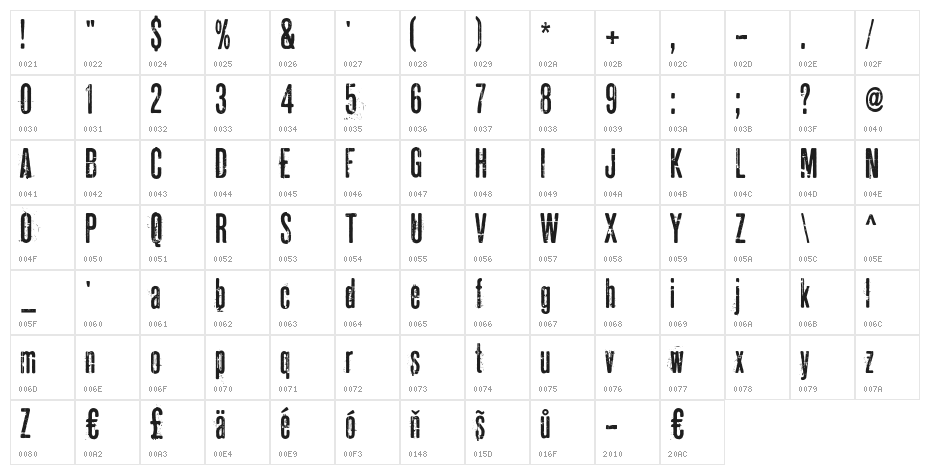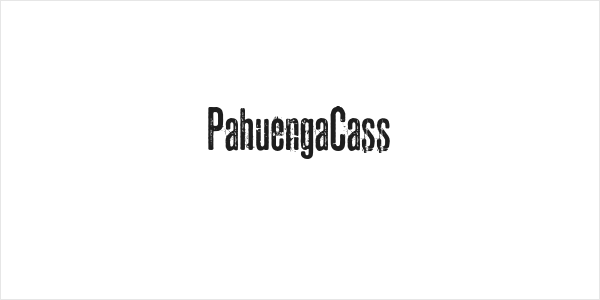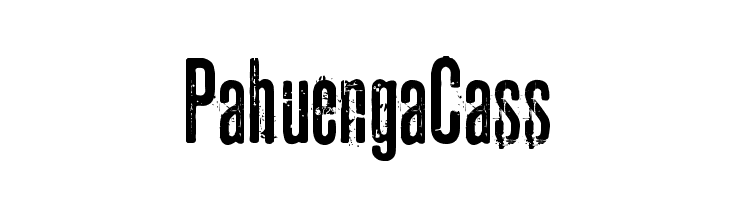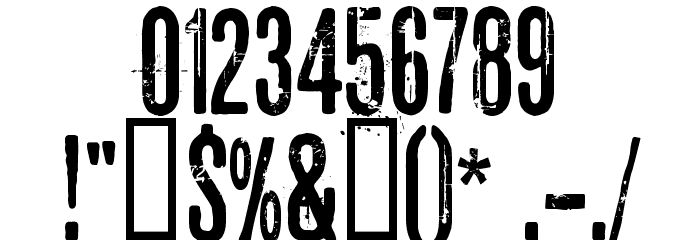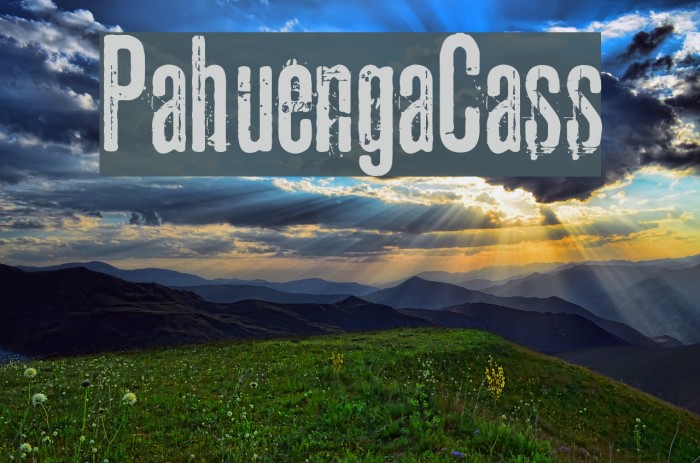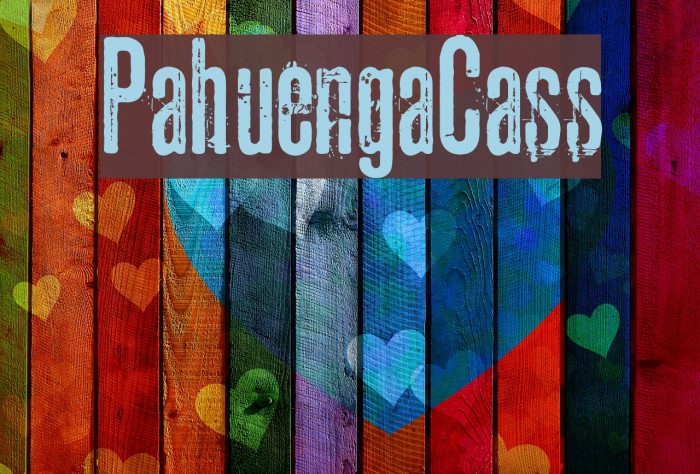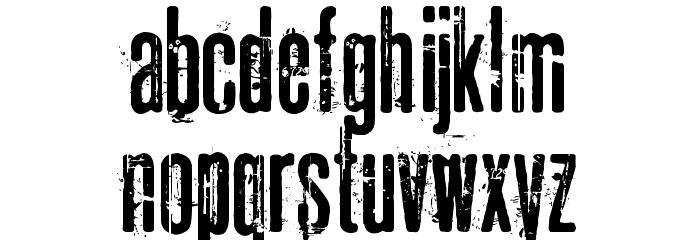
PahuengaCass Font
PahuengaCass Description
This font features a distressed, grunge style with a bold and impactful appearance. The characters are tall and narrow, with a rough texture that gives them a worn, vintage look. The uppercase and lowercase letters maintain a consistent height, while the numbers and special characters follow the same distressed aesthetic. The font's unique texture makes it stand out, adding a rugged and edgy feel to any design. It's perfect for projects that require a bold statement, such as posters, album covers, or branding that seeks to convey a sense of rebellion or nonconformity.
PAHUENGACASS UPPERCASE
PAHUENGACASS LOWERCASE
PAHUENGACASS OTHER CHARS
| Overall Style | Vintage, Grunge |
| Proposed Projects | Ideal for posters, album covers, edgy branding, and rebellious-themed designs. |